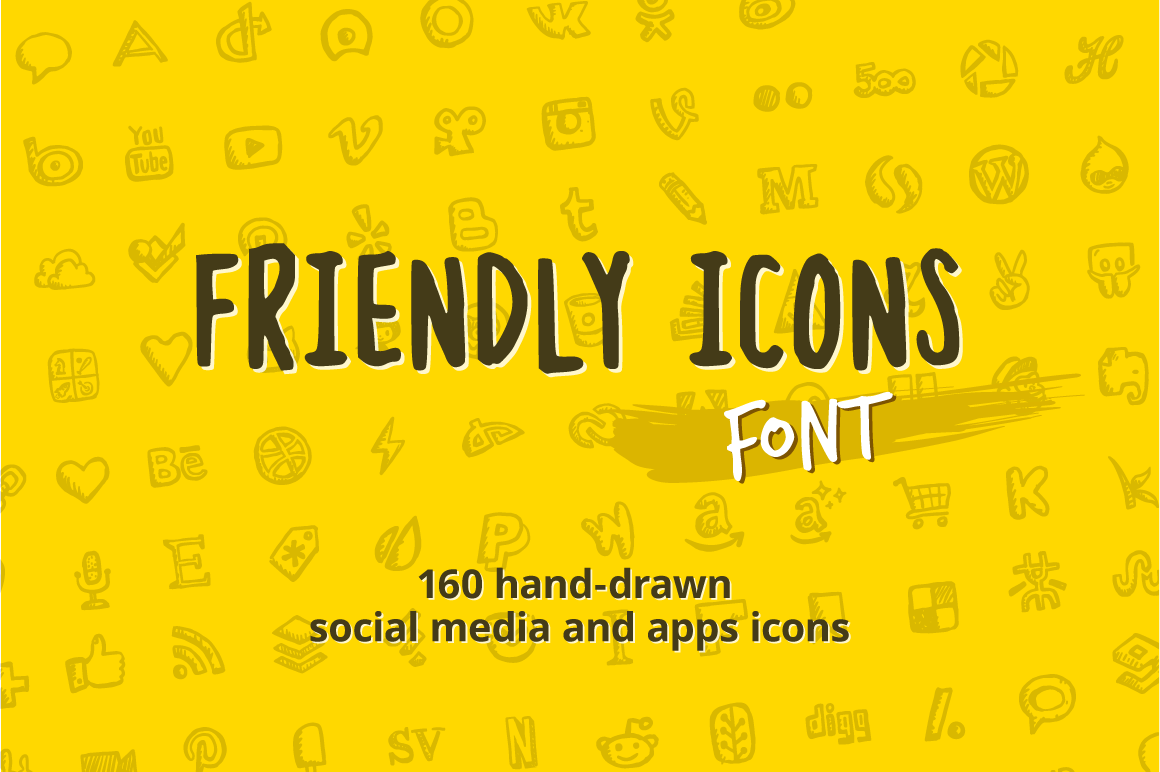
Friendly Icons Font
Social icon font includes160 hand-drawn icons featured in the original Friendly Icons set by Hand-Drawn Goods.
Icon font allows seamlessly add icons to web layouts and style each icon with CSS, saving time from generating sprites or editing the images.
Icon fonts provide unlimited scalability, allow you to change icons size, color and style through CSS stylesheets. Friendly Icons Font includes 4 font formats and a CSS file containing @font-face declarations and classes.
Friendly Icons Font includes characters from the following categories: social networks, apps, platforms, messengers, cloud services, sharing tools and interface elements.